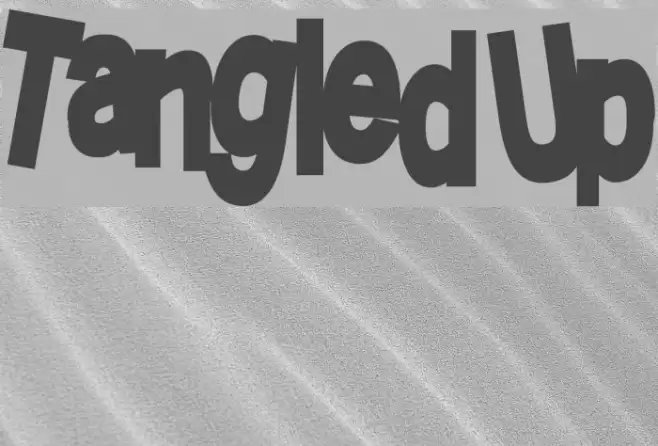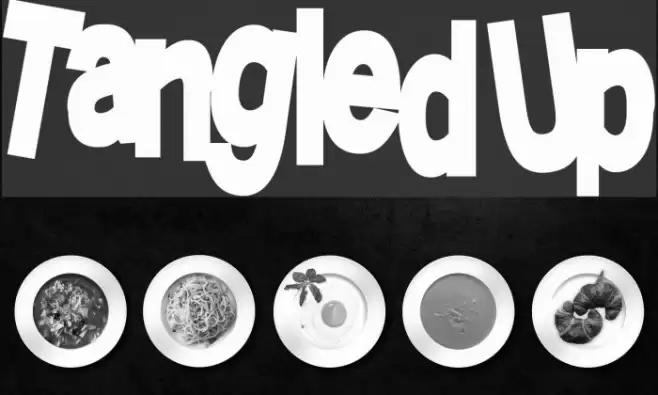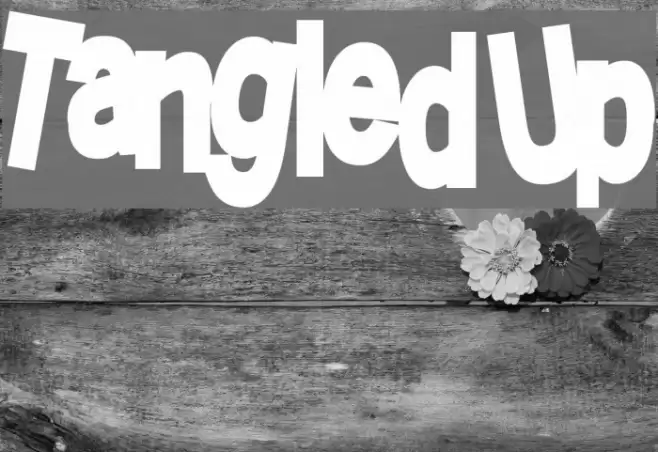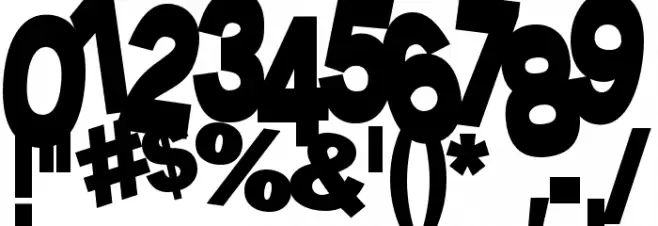
TangledUp Font
TangledUp Description
This font features a bold and playful design with exaggerated, irregular shapes that create a sense of movement and energy. The letters are thick and heavy, with a slightly distorted appearance that adds a whimsical touch. The uppercase and lowercase characters maintain a consistent weight, while the numbers and special characters follow the same bold style. The overall look is dynamic and eye-catching, making it suitable for creative and informal projects.
A bold, playful font with irregular, dynamic shapes from Uncategorized fonts.
- Proposed Projects: Ideal for children's books, playful branding, posters, and creative advertising campaigns.
- Overall Style: Playful, Whimsical